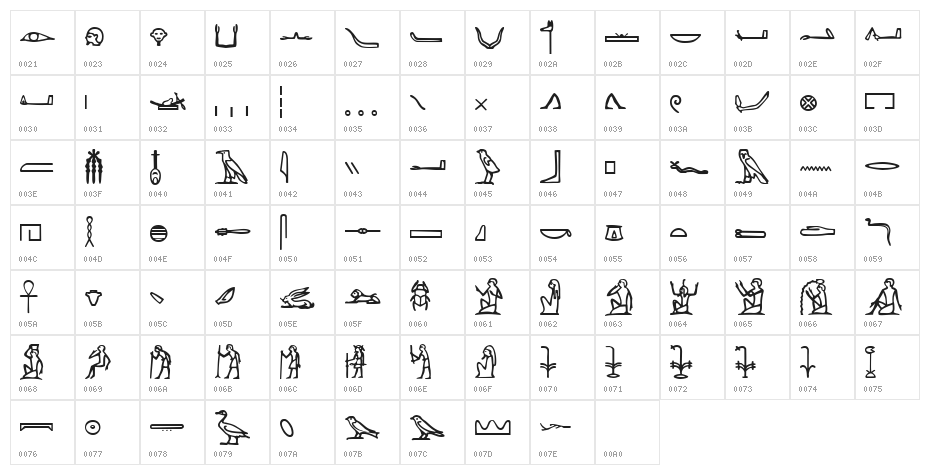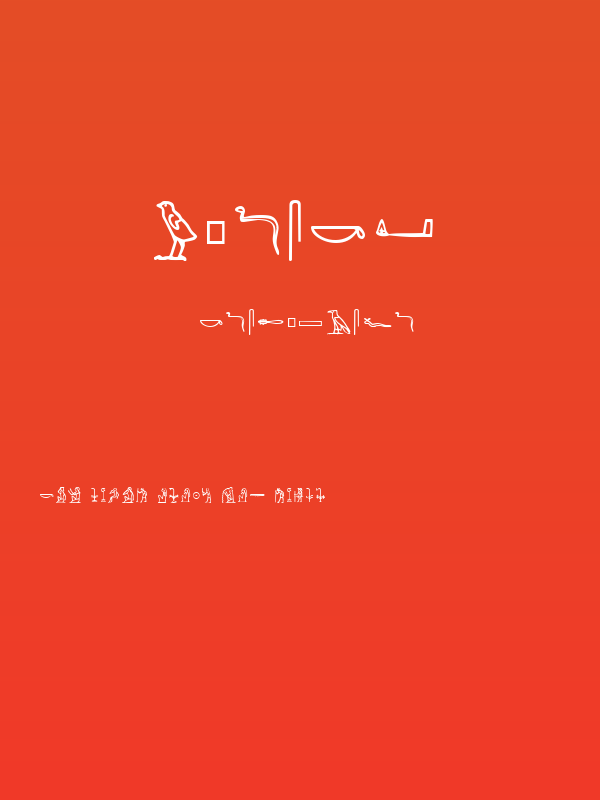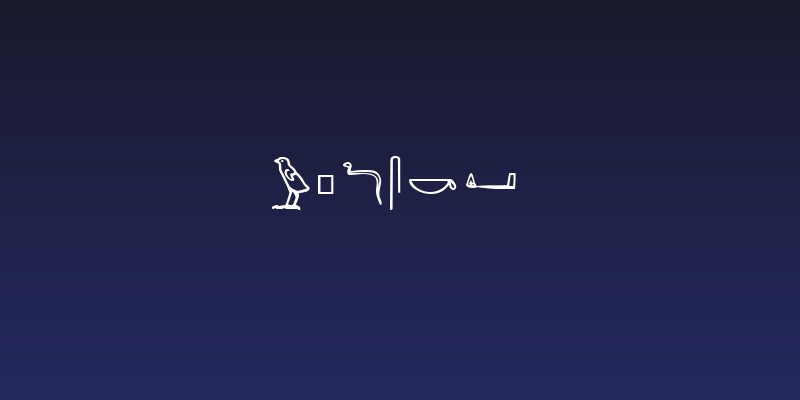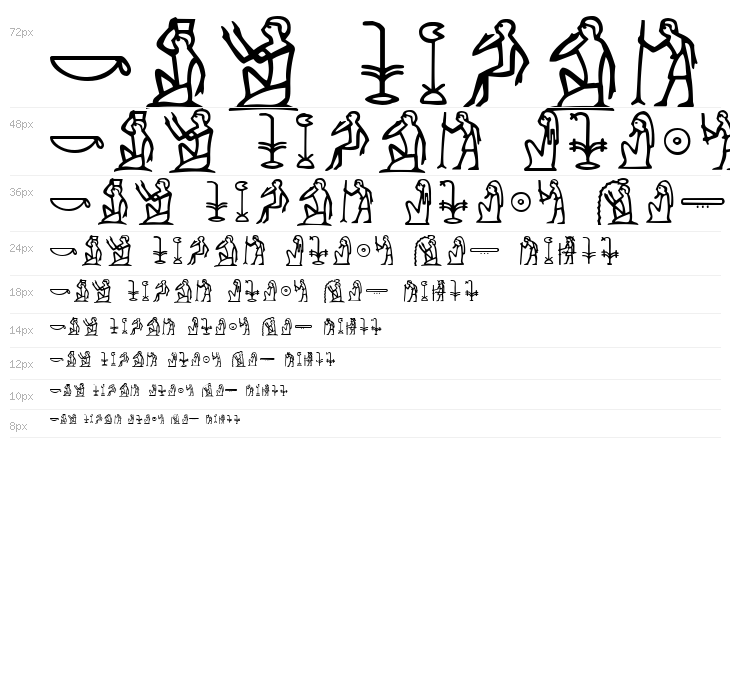
Egypt0 Font
Egypt0 Description
A decorative typeface inspired by ancient Egyptian hieroglyphs, featuring intricate pictorial symbols and characters with varying line thickness and detailed forms. The glyphs are highly stylized, each representing a distinct object or concept, and are arranged in a way that mimics historical inscriptions.
| Overall Style | Decorative, Ancient, Thematic |
| Use Case | Themed headlines, educational graphics, display text, visual storytelling. |
| Proposed Projects | Historical displays, educational materials, themed posters, museum exhibits, ancient civilization projects. |